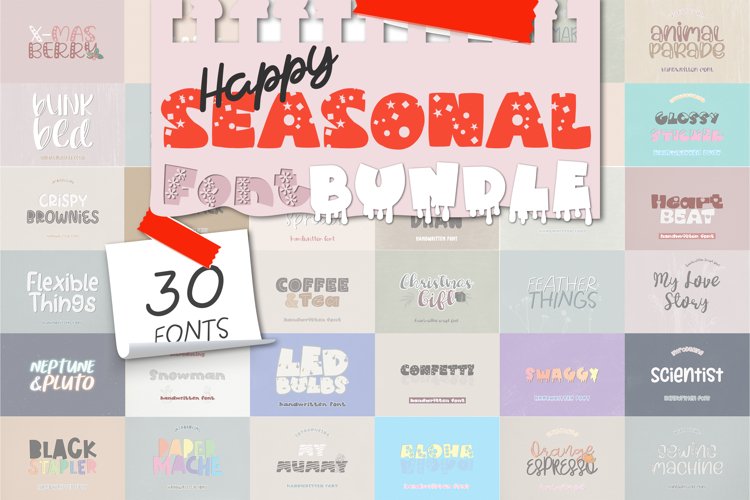
The Happy Seasonal Font Bundle is here with an incredible selection of 30 sweet handwritten fonts for all seasons. This bundle has a wide range of versatile fonts for special occasions and holidays such as Christmas, Easter, Halloween, New Year's Day, Thanksgiving, Valentine's Day.
Happy Seasonal Font Bundle is perfectly suited for Quotes, Branding, Logos, Greeting Cards, Invitations, Stationery Design, Children's designs, T-shirts, Packaging designs, Poster, Typographic designs, Papercrafts, Digital crafts, and so much more!
Fonts Included:
Aloha
Animal Parade
Black Stapler
Bunk Bed
Christmas Gift
Coffee And Tea
Confetti
Crispy Brownies
Feather Things
Flexible Things
Glossy Sticker
Heartbeat
LED Bulbs
Lucky Draw
Minimum
My Love Story
My Mummy
Neptune And Pluto
Orange Espresso
Paper Mache
Paperback
Sandwich Spread
Scientist
Sewing Machine
Snowman
Splashy
Submarine Sandwich
Swaggy
Thinking Out Loud
Xmas Berry